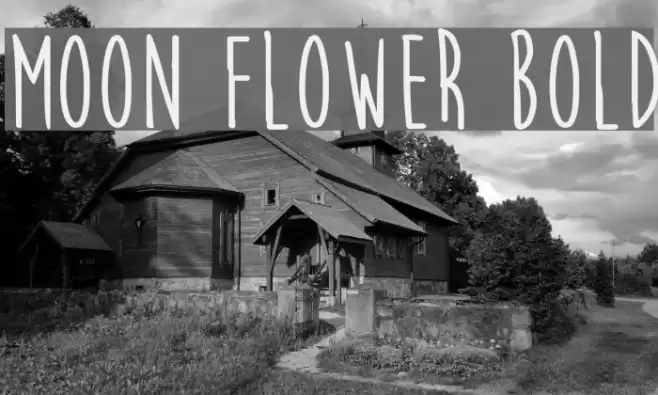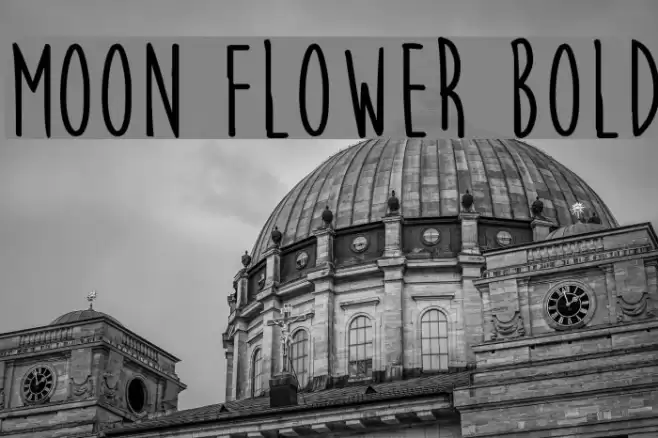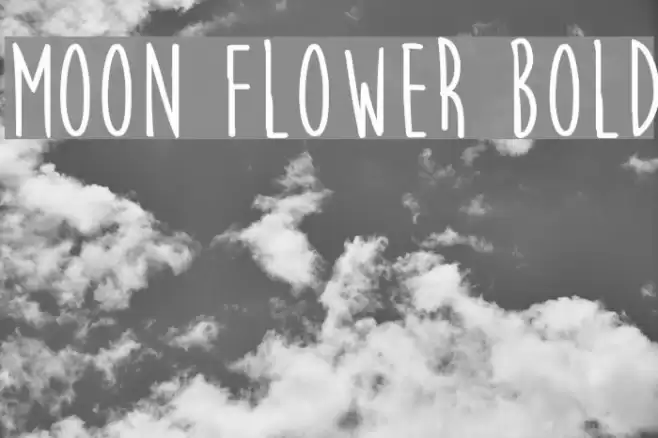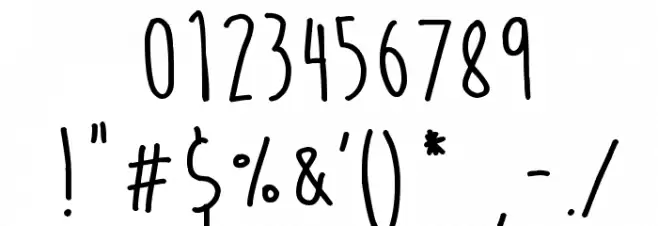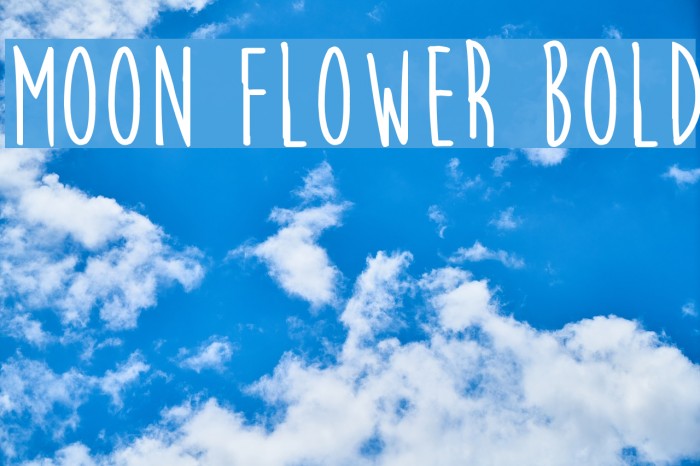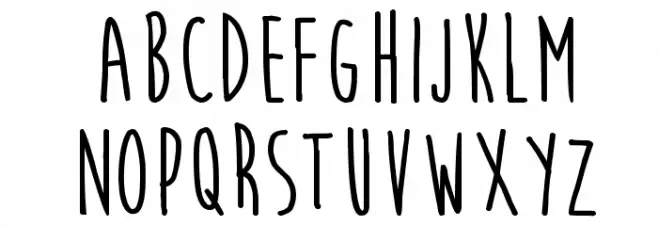
Moon Flower Bold Font
Moon Flower Bold Description
This font features a playful and casual handwritten style, characterized by its tall, narrow letters with a slight slant. The strokes are consistent in width, giving it a uniform appearance, while the rounded edges add a friendly and approachable feel. The uppercase and lowercase letters maintain a cohesive look, with the lowercase letters being slightly smaller but retaining the same elongated form. The numerals are clear and easy to read, matching the overall style of the alphabet. Special characters are included, maintaining the same playful aesthetic. This font is ideal for projects that require a personal touch or a casual, informal vibe.
A playful, handwritten font with tall, narrow letters and rounded edges from Handwritten fonts.
- Proposed Projects: Greeting cards, children's books, casual branding, social media graphics.
- Width: Condensed
- Overall Style: Casual
- Use Case: Headlines, Logos, Informal text